Monotype, one of the world’s largest type foundries, is used to churning out new fonts. Most of them take weeks, months, and even years to develop, but over the course of the past week, Monotype has been trying something different. As part of the company’s very first font marathon, Monotype tasked two of its most talented young type designers with designing two entirely new fonts in less than a week, from initial concept to sale on Monotype’s web store.
The idea for a font marathon came from Nadine Chahine, the typeface designer behind Monotype’s recent Zapfino Arabic font (and a member of Fast Company‘s Most Creative People list). Over the winter, Chahine decided to shut herself off from friends and spent the weekend trying to design an entirely new typeface. “One thing I liked about it was that when you’re rushed for time, you tend to embrace very intuitive solutions,” Chahine tells me. “It pulls a design out of you that you normally might not have done.”
Inspired by Chahine’s experiment, Monotype allowed two of its rising stars, Toshi Omagari and Jim Ford, to explore typefaces they otherwise wouldn’t necessarily have had the time to design. Omagari and Ford each spent five days locked in a room in Monotype’s New York offices, working, eating, and sometimes even sleeping there. To make their deadlines, the two designers sometimes had to stay until 3 a.m.; Ford was so cramped for time that he even had to work on his typeface in the back of taxis to and from the office.
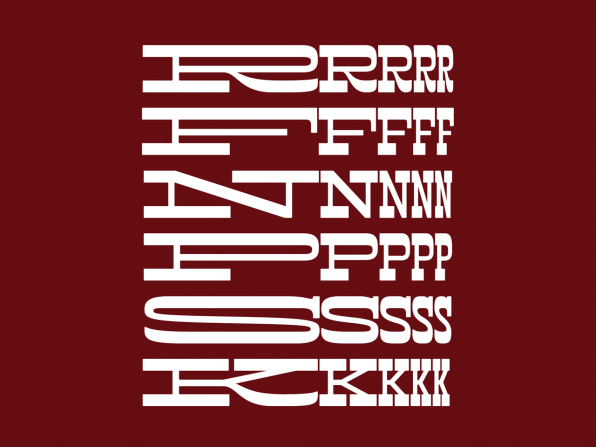
Two fonts emerged from the inaugural marathon. One is Cowhand, a font designed by Toshi Omagari. Omagari calls his font monowidth: no matter how many letters are in a word, his font will render the word exactly the same width, up to 20 letters long. That means in Cowhand, the word “the” renders just as long as “electroencephalogram.”
To make words readable no matter how many letters they have, Omagari had to design a font with very thick serifs, and very thin stems. (What’s more, he had to design 20 different variations of each letter.) Consequently, the font is almost Western in style: It would look good in an old Clint Eastwood movie. Omagari also envisions it being used on posters, menus, movie title screens, and more.
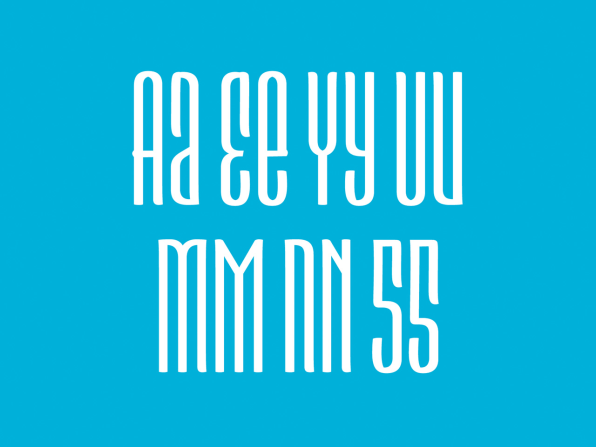
Jim Ford’s typeface, Esca, is almost the exact opposite of Omagari’s. For Esca, Ford wanted to design a typeface that was as condensed as possible, a veritable whisper of a font. What’s more, Ford, who has a background in hand-lettering, didn’t want his typeface to look artificial: He wanted it to have an almost calligraphic touch.
“Esca evolved out of calligraphy and brush practice,” Ford tells me. “I made a mood board, and sort of blended a few different things to create it. It was challenging. In a typeface like this, the letter forms want to be very simple, so I had to work hard to maintain the calligraphic and brush characteristics in this ultra-condensed space.” The result is a typeface that looks tall, almost like an elegant fence. Ford sees Esca as being perfect for album covers. The next Passion Pit album, perhaps?
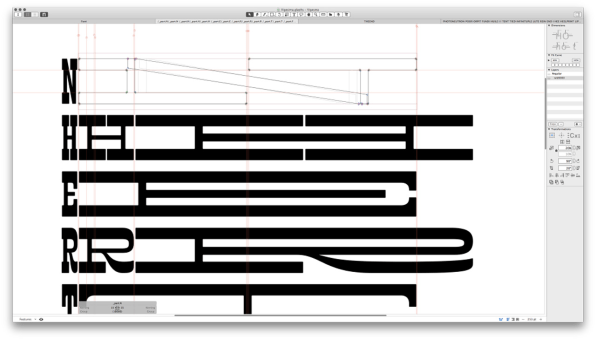
Both Esca and Cowhand are limited typefaces. They don’t support the full range of characters, italics, bolds, and all the other little niceties that make for a fully developed character set. They’ll work well if you need a font for posters, covers, menus, and so on, but they might fail you if you try to do more than that with them. The designers will probably update them and tweak them, but there’s no timeline for that yet.